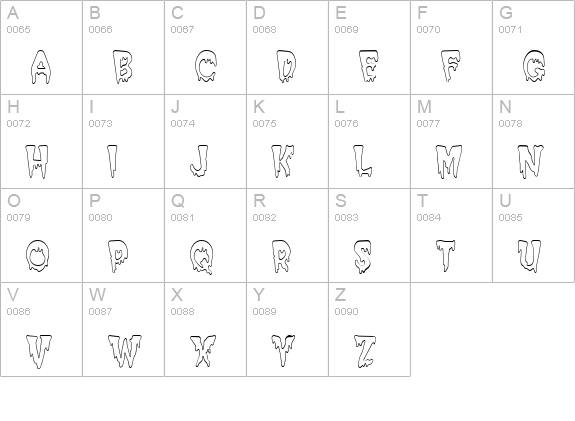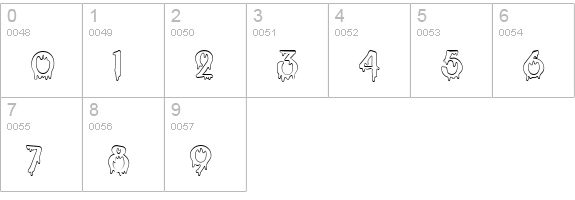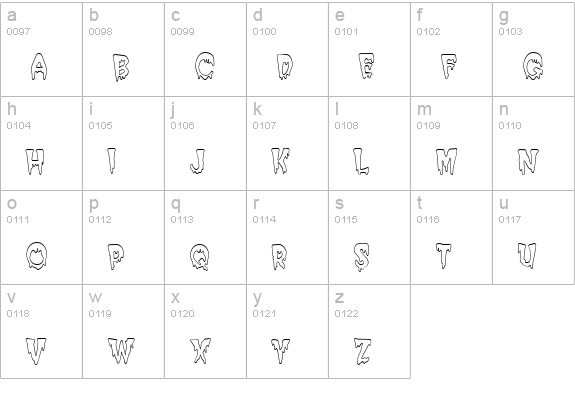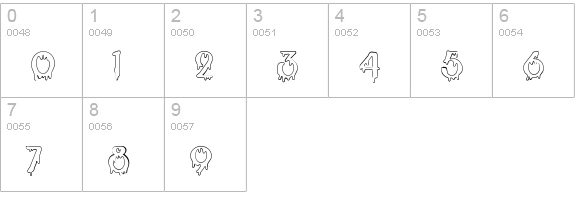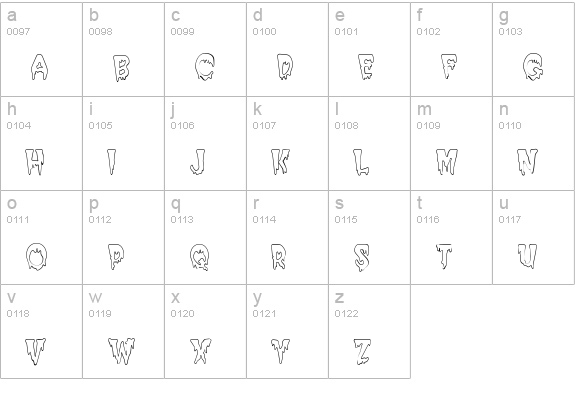
Creepy HollowCondensed Normal Font Details
Creepy HollowCondensed Normal is the standard, neutral variant in the Creepy typeface family \xE2\x80\x94 well suited to general body text, paragraphs, and standard typographic work.
Creepy HollowCondensed Normal font is a hauntingly beautiful typeface that exudes an air of mystery and intrigue. Its slender, elongated letters seem to dance on the page, invoking a sense of otherworldly elegance. Perfect for adding a touch of spookiness to your designs, this font is ideal for Halloween-themed projects, horror movie posters, or any project that requires a touch of the supernatural. What's even better is that Creepy HollowCondensed Normal font is available for free download at FontsMarket.com. Yes, you read that right - you can add this eerie font to your collection without spending a penny. So don't miss out on the opportunity to enhance your designs with this unique and captivating typeface. Download Creepy HollowCondensed Normal font today and let your creativity run wild!